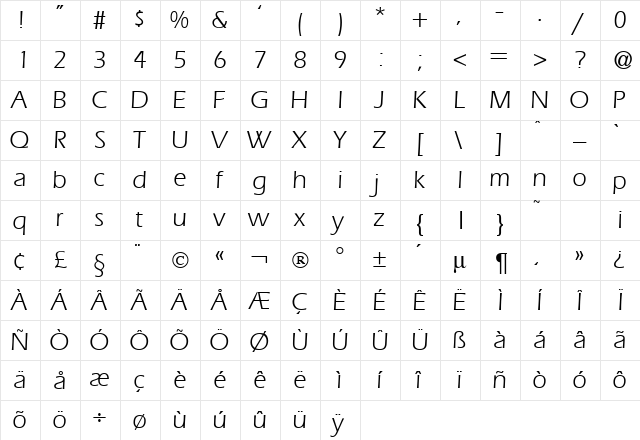
Erasmus Normal
Design Context for Erasmus Typeface
Erasmus offers clean, dependable letterforms without strong stylistic allegiance, making it a practical choice for designers who need flexibility.